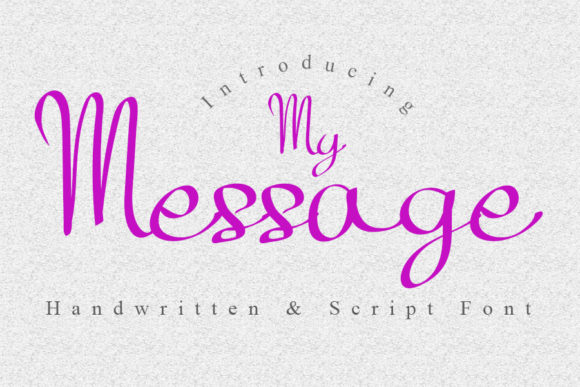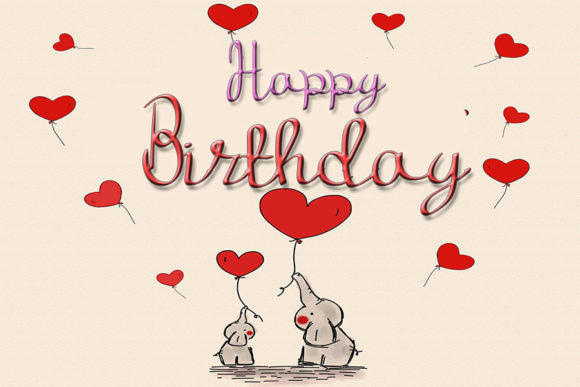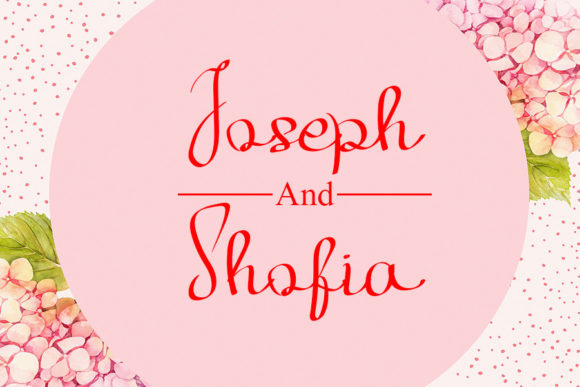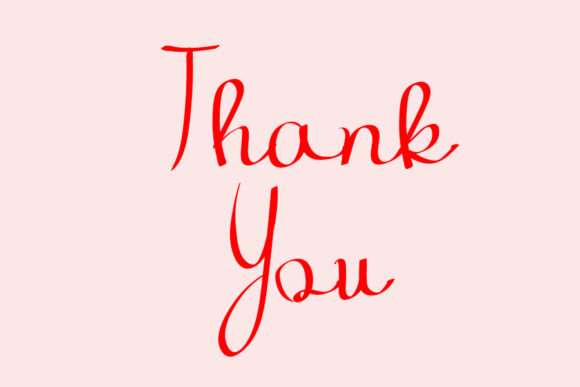
About My Message Font
My Message is a sweet and cursive handwritten font. This gentle font will look gorgeous on a variety of design ideas. It will add a joyful and romantic touch to each of your projects!